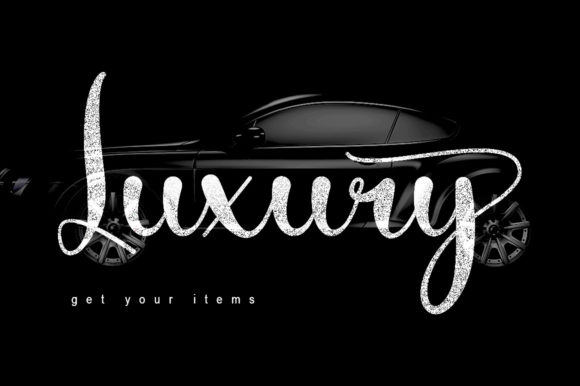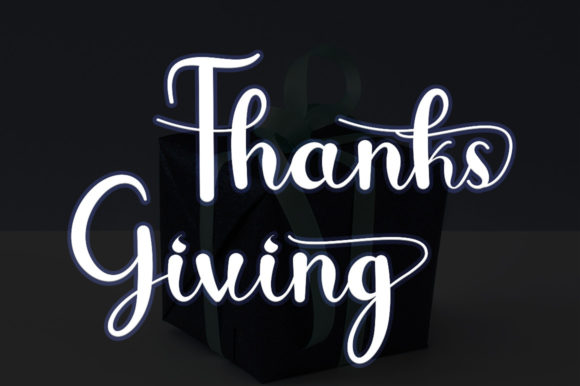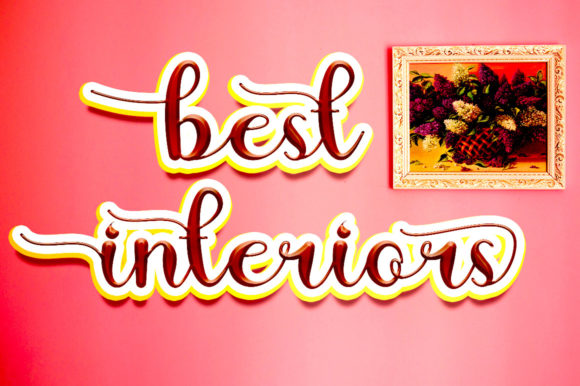
Introduction to Baby Shop Font
Baby Shop is a fine handwritten font, masterfully designed to become a true favorite.
It maintains its classy calligraphic influences while feeling contemporary and fresh This font is PUA encoded which means you can access all of the glyphs and swashes with ease.
Baby Shop Font offers exceptional quality and versatility, making it a valuable addition to your design toolkit. Whether you’re creating for personal projects or commercial use, Baby Shop Font delivers professional results.